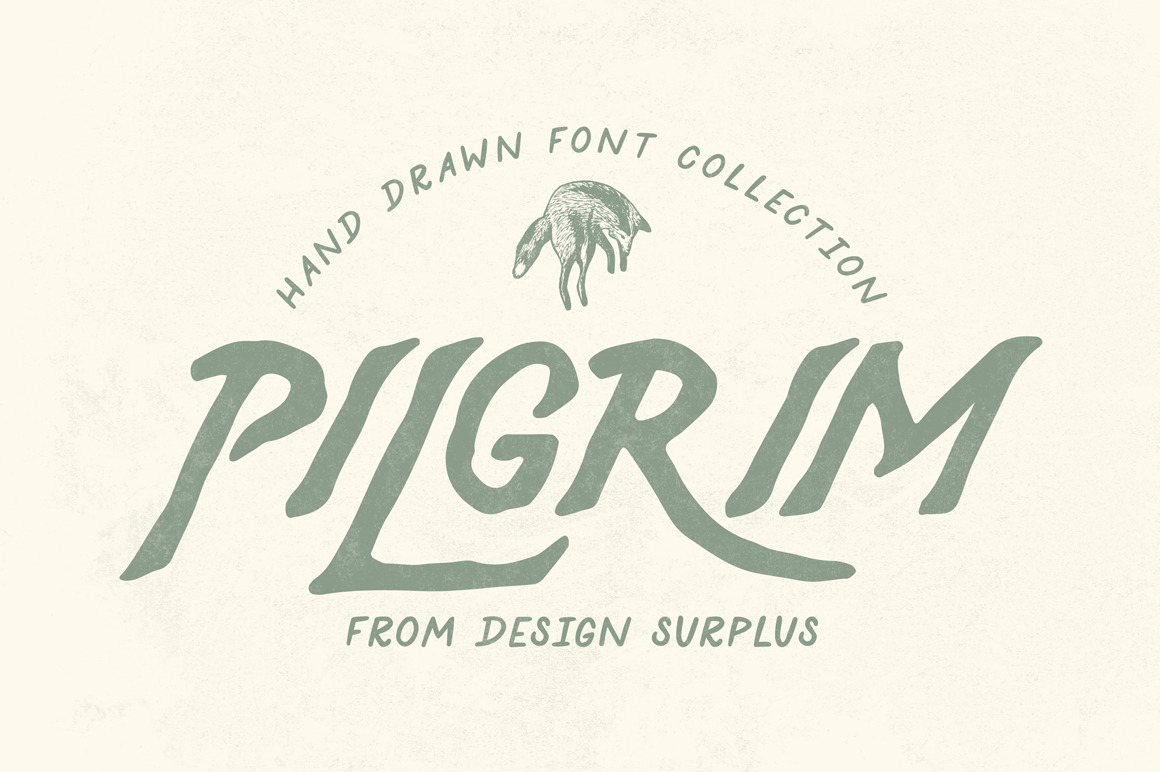
Pilgrim Font Collection (3 Fonts)
Pilgrim is a new collection of 3 hand drawn fonts by Design Surplus. Pilgrim Regular is an uppercase font with 2 alternatives for each letter. Pilgrim Antlers is a bonus font with a series of unique, illustrated uppercase letters (antlers, tress, deer, tents, mountains) Pair the rustic edges of Regular and Antlers with the smooth and simple Pilgrim Sans to create distinctive logos and branding.
- Pilgrim Regular
- Pilgrim Antlers
- Pilgrim Sans